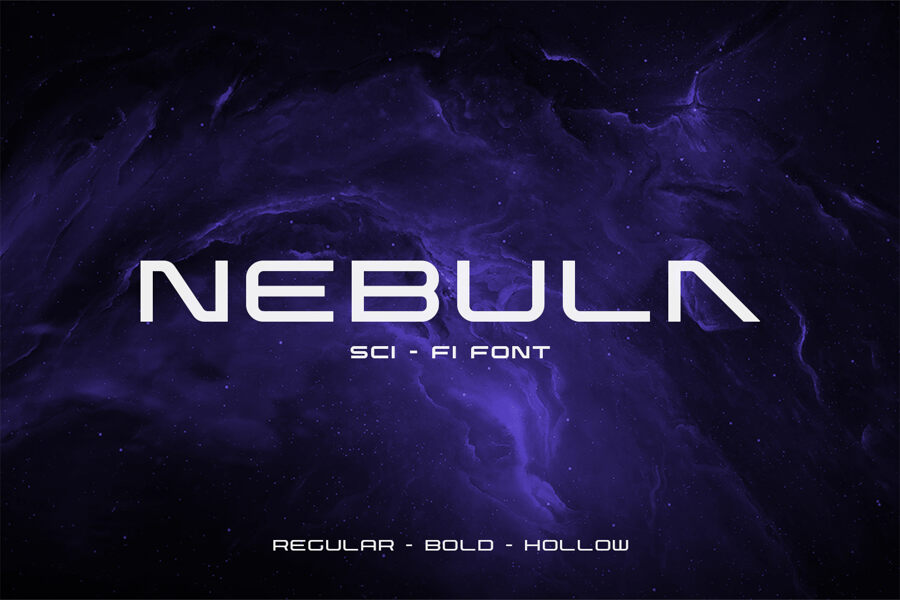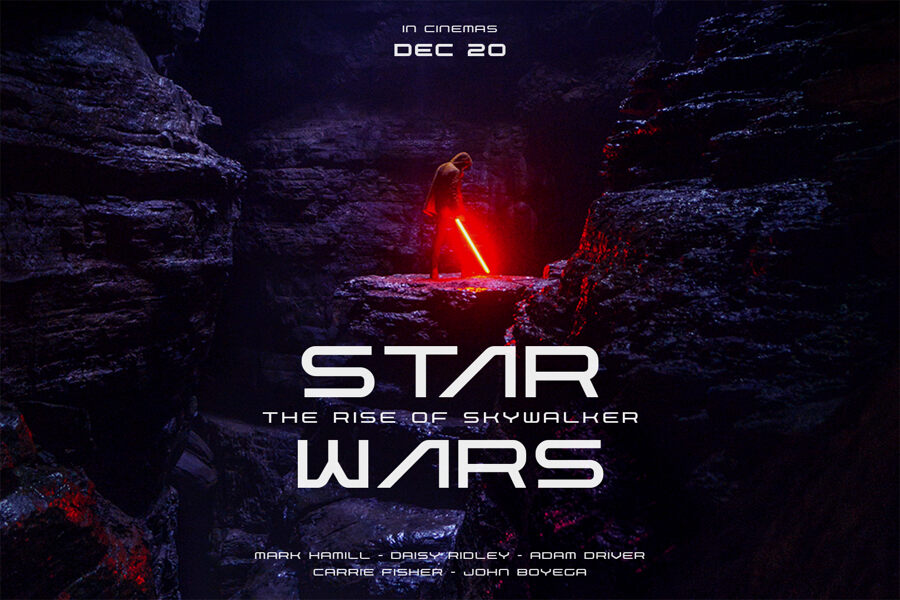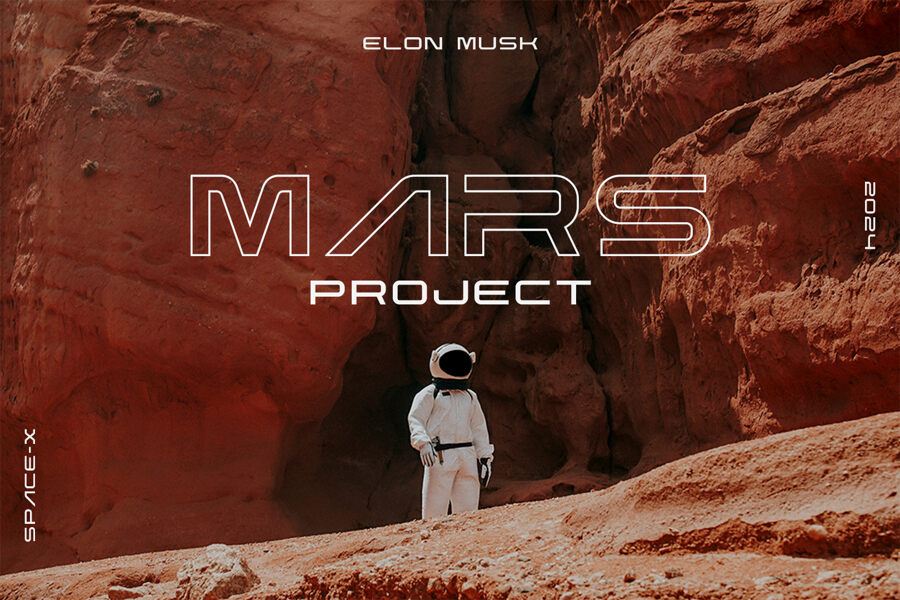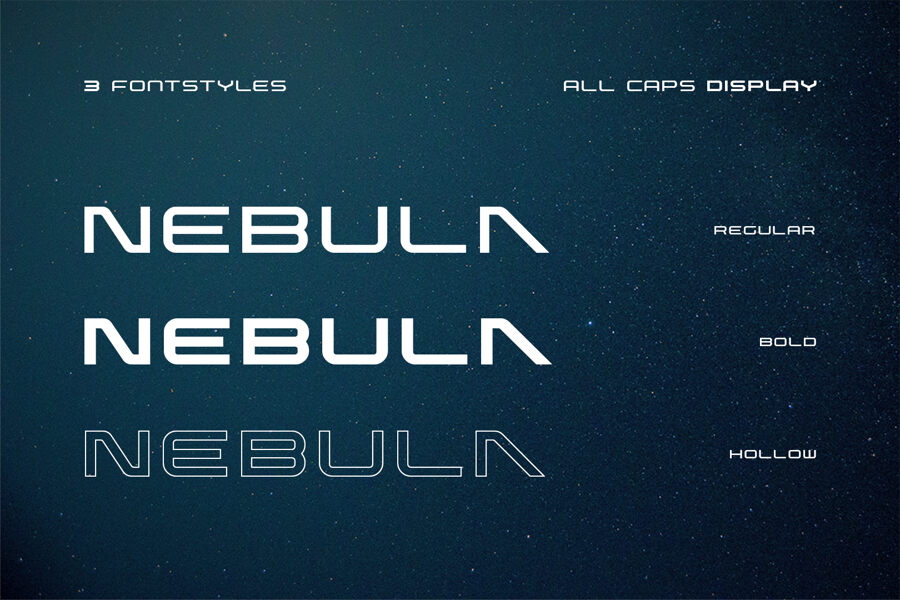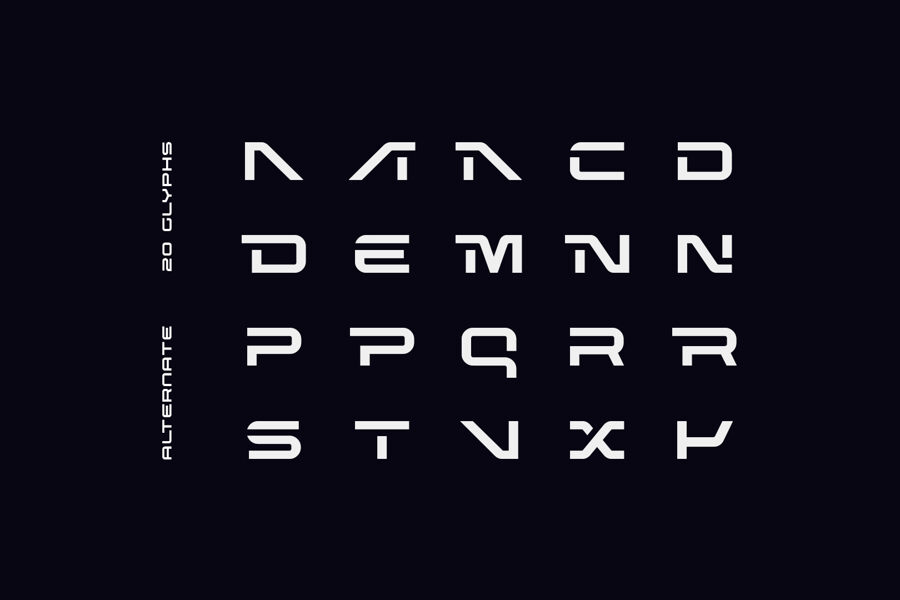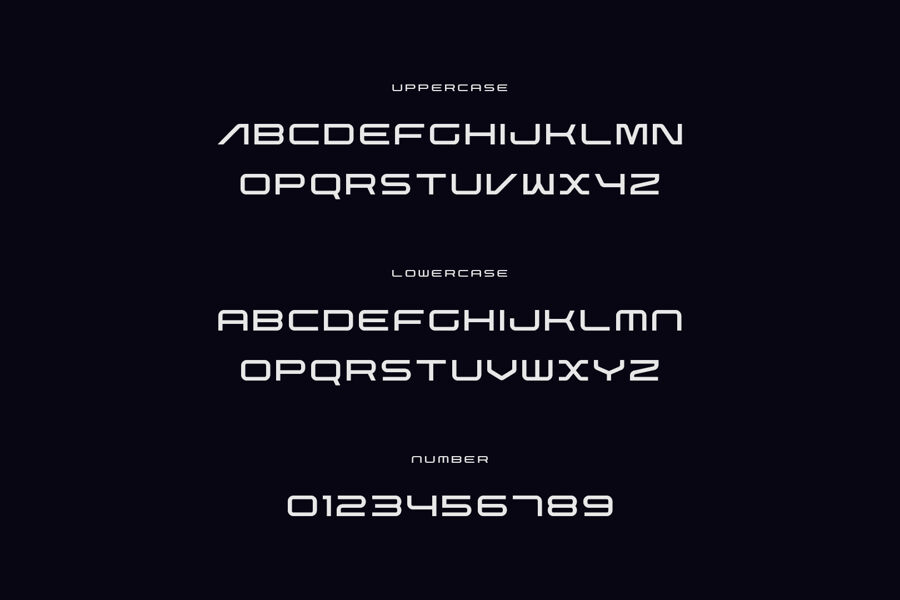
Nebula Font
Nebula is a striking, futuristic display font that captures the essence of deep space and modern science fiction. Characterized by its sleek, geometric lines and a high-tech aesthetic, it is perfect for projects requiring a bold, cosmic vibe. Whether you are designing movie posters, video game titles, or modern tech branding, this typeface adds an instant intergalactic edge.